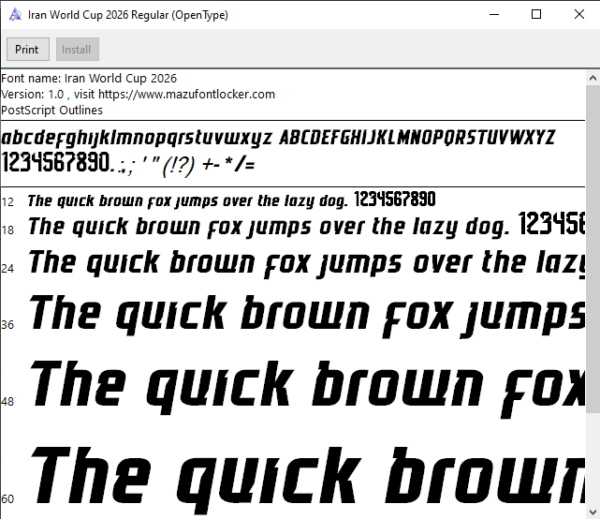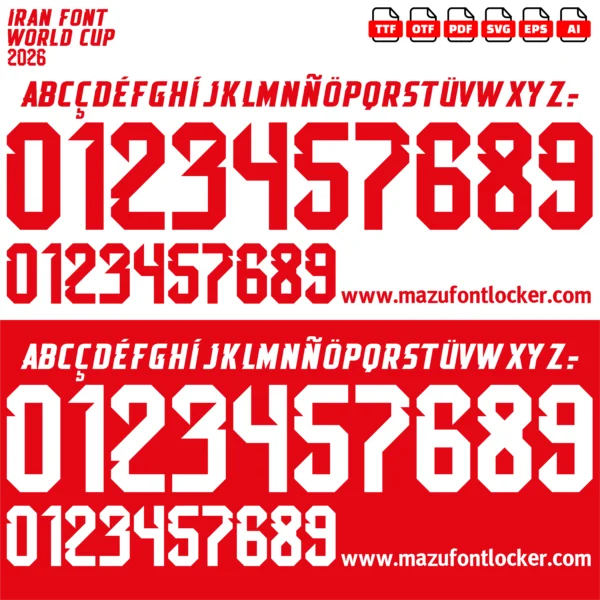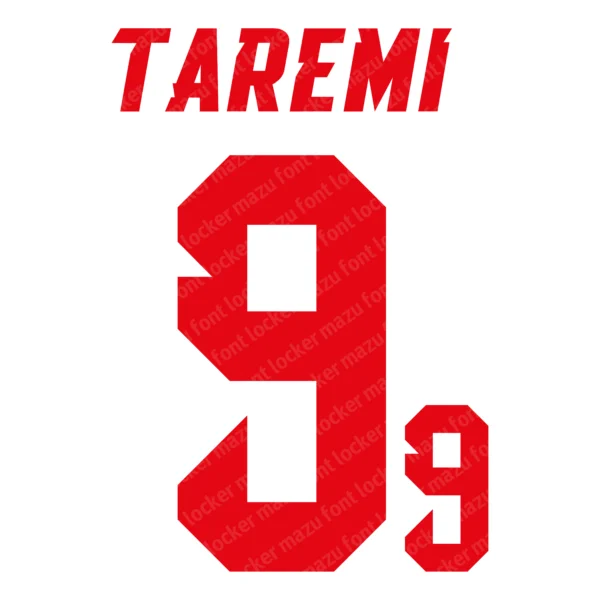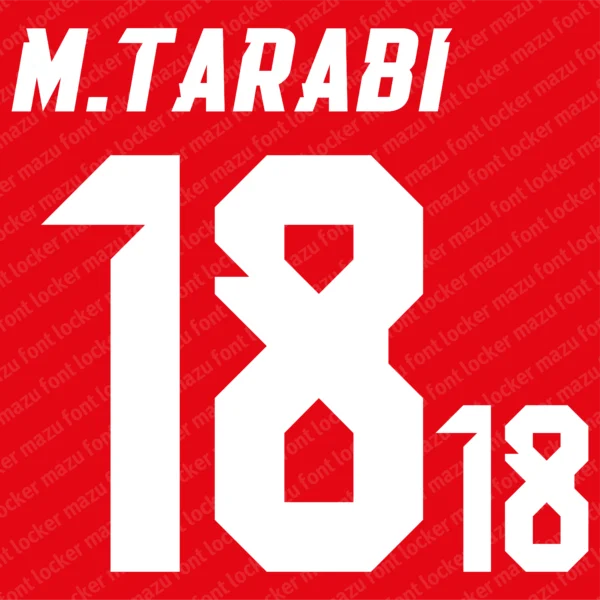
Iran World Cup 2026 Font Vector – Epic Persian Warriors Masterpiece
This premium font captures the commanding, iconic, majestic, and battle-ready lettering that embodies the unstoppable Iranian spirit — delivering raw Persian fire, explosive winning energy, relentless never-say-die mentality, tactical supremacy, and legendary revolutionary warrior grit.
Iran World Cup 2026 Font Vector – Authentic Team Melli Typeface
The Iran World Cup 2026 Font Vector is a premium typeface that accurately recreates the official match lettering worn by the Iran national team during the 2026 FIFA World Cup campaign. This high-quality vector font kit captures the bold, elegant, and dynamic typography that represents the pride, passion, and rich football heritage of Team Melli.
Designed for professional designers and passionate Iran fans, the Iran World Cup 2026 Font Vector delivers perfect authenticity for creating realistic jersey mockups, fan merchandise, matchday posters, social media graphics, and Persian football content. It pairs beautifully with the iconic green, white, and red kit featuring the famous Team Melli crest.
Why Choose Iran World Cup 2026 Font Vector
This font stands out because of its sharp vector precision and strong national identity. Every letter and number is crafted to match the exact style used on the players’ shirts during the 2026 World Cup campaign. Whether you are making realistic kit templates or exciting Team Melli content, the Iran World Cup 2026 Font Vector gives your designs that authentic Iran look.
The letterforms in the Iran World Cup 2026 Font Vector are tall, bold, and highly readable. The strokes have a strong, clean weight with excellent edge definition that looks powerful on the back of jerseys while maintaining classic Persian spirit and modern strength.
• Full uppercase A–Z and numbers 0–9 in authentic Iran World Cup 2026 style
• Create highly realistic Iran World Cup 2026 home and away jersey mockups with accurate lettering
Iran World Cup 2026 Campaign
The Iran World Cup 2026 Font Vector is an independently designed typeface package. It is carefully crafted to replicate the official shirt lettering style of the 2026 World Cup season. This font kit is perfect for creative projects, fan edits, nostalgic jersey designs, and custom football graphics.